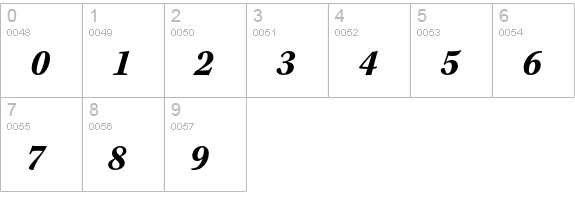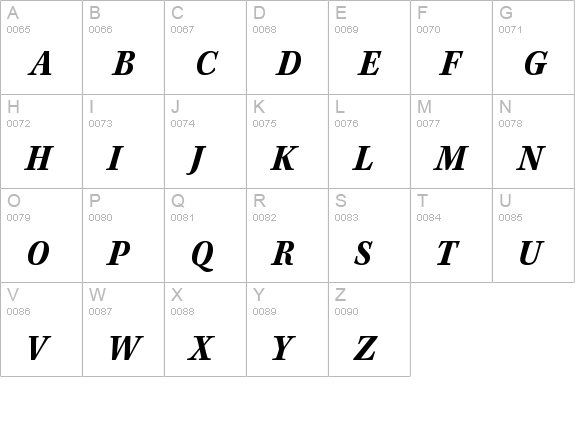
Kepler Std Bold Semicondensed Italic Caption Font Details
Kepler Std Bold Semicondensed Italic Caption is a strong, high-contrast, italic variant in the Kepler typeface family \xE2\x80\x94 well suited to headlines, attention-grabbing titles, and strong calls-to-action.
The Kepler Std Bold Semicondensed Italic Caption font is a stunning and versatile typeface that is sure to make a bold statement in any design project. With its sleek and modern design, this font is perfect for headlines, captions, logos, and more. Featuring a unique combination of boldness and elegance, this font will add a touch of sophistication to any design. Its condensed and italicized form adds a dynamic and energetic feel, making it ideal for capturing attention and creating visual impact. Whether you're designing a magazine cover, advertisement, or website, the Kepler Std Bold Semicondensed Italic Caption font is a reliable choice. Its legibility and versatility make it suitable for a wide range of applications, ensuring that your message is delivered effectively. What's even better is that this font is available for free download at FontsMarket.com. You can easily access and enjoy the benefits of this stunning typeface without any cost. Whether you're a professional designer or a hobbyist, this free font will elevate your projects and help you stand out from the crowd. Don't miss out on the opportunity to enhance your designs with the Kepler Std Bold Semicondensed Italic Caption font. Download it for free at FontsMarket.com and unlock a world of creative possibilities.